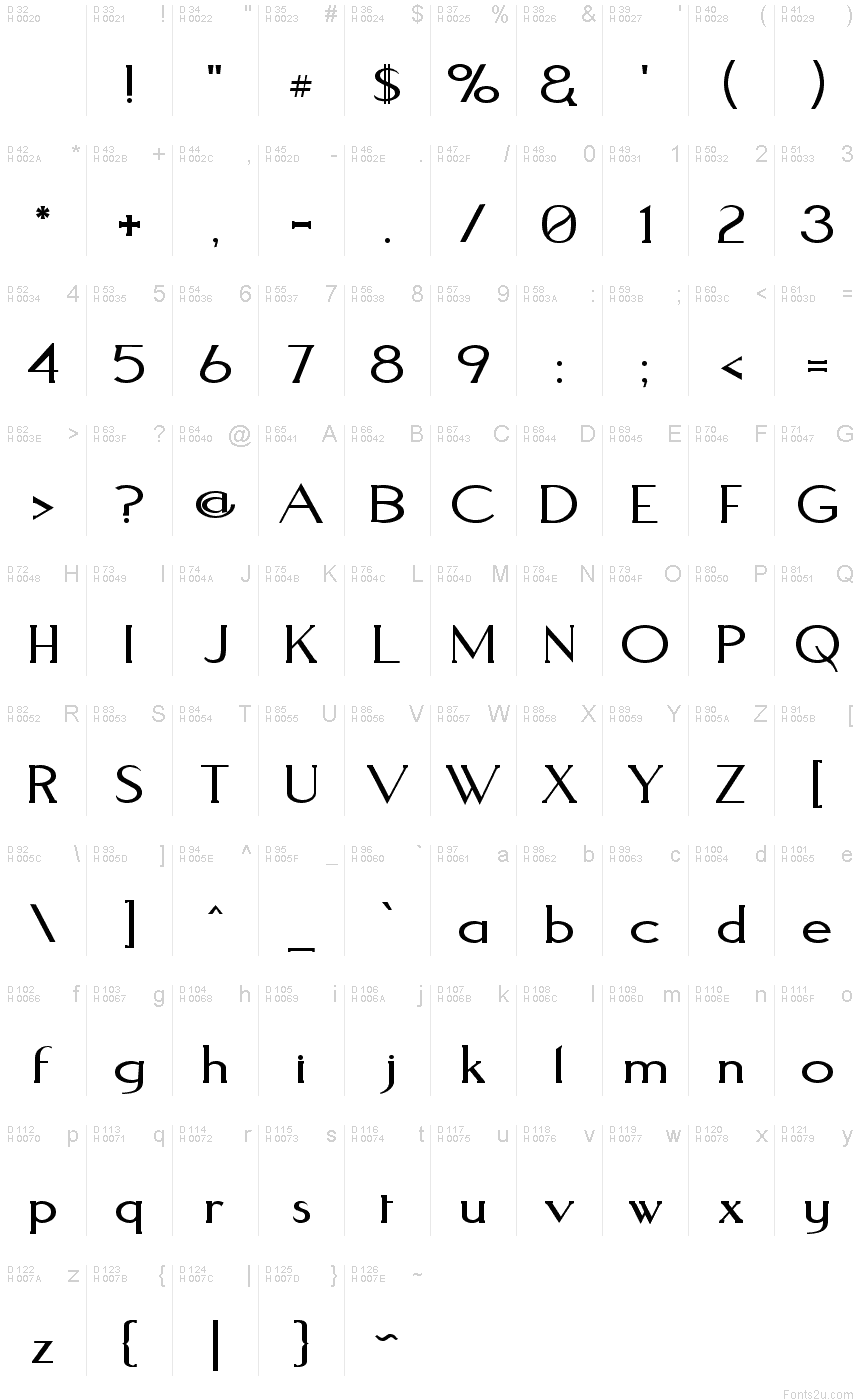
Aquaduct Plain
Aquaduct Plain font by Graham Meade / Name courtesy - Jami Reed is a free serif typeface with a distinct, flowing rhythm that feels half calligraphic, half classical print. The tall, pointed caps and gently swelling curves give each word a sense of movement, as if the letters were pulled across the page with a loaded ink pen. Its slightly narrowed shapes and generous internal space keep it readable while still feeling ornate and handcrafted.
Using Aquaduct Plain, you get a serif that truly shines on book covers, fantasy or historical titles, wine labels, boutique logos, posters, and chapter headers where a touch of old-world romance is needed. This free font works beautifully at larger sizes, where its tapered strokes and sweeping curves can breathe. Pair Aquaduct from the same family with a clean, modern sans for body copy and let Aquaduct Plain handle the names, headlines, and key phrases.